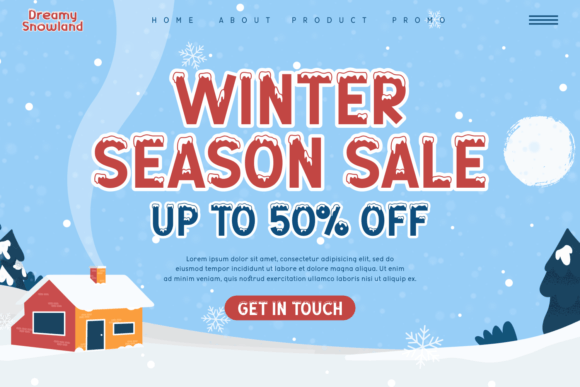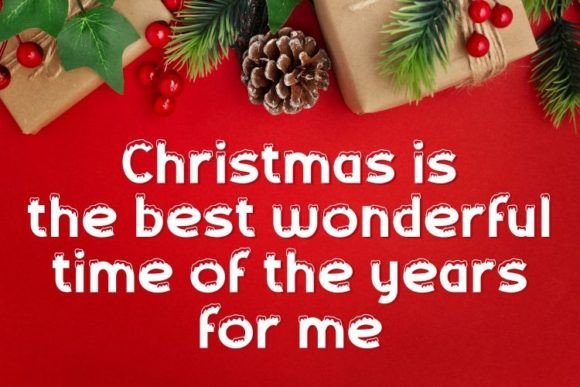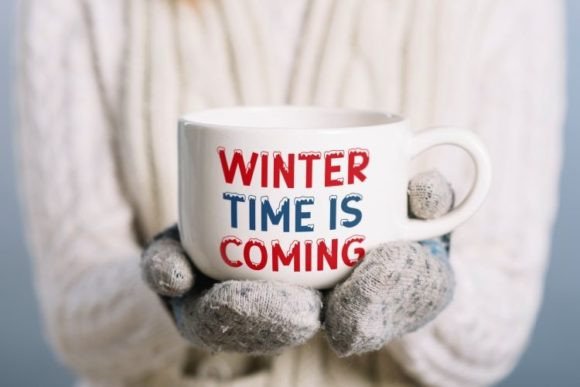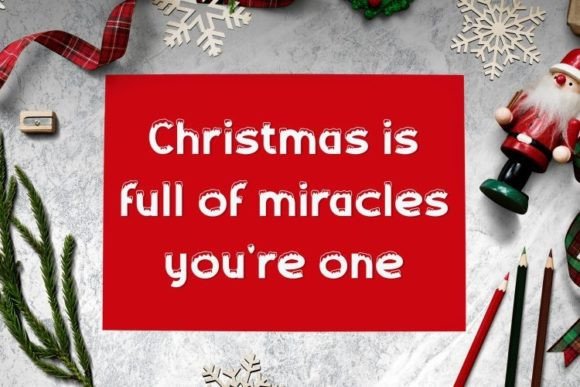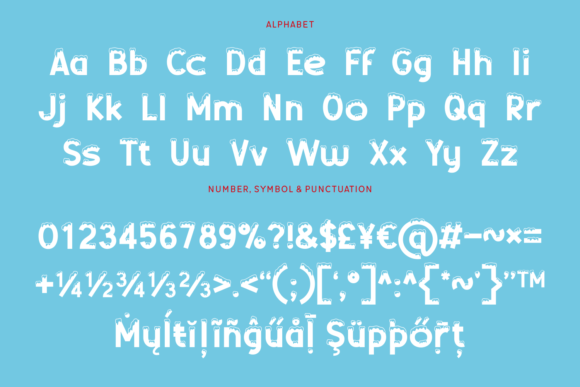
Dreamy Snowland Font: Bringing Winter Wonder to Your Designs
As the winter season approaches, designers and crafters are on the lookout for the perfect typography to capture the magic and essence of snowflakes, frosty mornings, and cozy nights by the fire. If you’re searching for a font that embodies the whimsical and enchanting atmosphere of winter, look no further than the Dreamy Snowland Font. This frosty decorative font is designed to bring all your winter projects to life, adding a touch of wonder and fantasy to your creations.
What is Dreamy Snowland Font?
Dreamy Snowland is a beautifully crafted typeface that exudes a sense of frosty elegance and playfulness. Its intricate and delicate design makes it perfect for a variety of winter-themed projects, from storybooks and Christmas cards to social media graphics and branding materials. With its dreamy and enchanting quality, this font is sure to captivate your audience and leave a lasting impression.
Key Features of Dreamy Snowland Font
- Frosty Decorative Design: Dreamy Snowland boasts an intricate and frosty design that adds a touch of winter wonder to any project.
- Whimsical and Playful: The font’s playful and whimsical nature makes it perfect for children’s storybooks, Christmas cards, and other festive projects.
- Elegant and Sophisticated: Despite its playful nature, Dreamy Snowland Font also exudes a sense of elegance and sophistication, making it suitable for high-end branding and marketing materials.
Uses for Dreamy Snowland Font
Dreamy Snowland Font is incredibly versatile and can be used in a wide range of projects, including:
- Winter Storybooks: Create enchanting storybooks that transport readers to a magical winter wonderland.
- Christmas Cards: Add a touch of festive cheer to your Christmas cards and greetings with this beautiful font.
- Social Media Graphics: Create eye-catching social media graphics that capture the essence of winter and showcase your brand’s personality.
- Branding and Packaging: Use Dreamy Snowland Font to create unique and captivating branding materials, such as logos, labels, and packaging.
Tips for Using Dreamy Snowland Font
To get the most out of Dreamy Snowland Font, here are a few tips to keep in mind:
- Pair with Bold Fonts: Pair Dreamy Snowland Font with bold and modern fonts to create a striking contrast and add visual interest to your designs.
- Experiment with Colors: Try pairing the font with a range of winter-inspired colors, such as icy blues, snowy whites, and rich reds.
- Add Winter Elements: Enhance your designs by adding winter elements, such as snowflakes, pinecones, and holly, to create a cohesive and festive look.
Dreamy Snowland Font is a beautiful and versatile typeface that is sure to bring a touch of winter wonder to your designs. With its frosty decorative design, whimsical and playful nature, and elegant sophistication, this font is perfect for a wide range of winter-themed projects. Whether you’re a designer, crafter, or simply someone who loves the magic of winter, Dreamy Snowland Font is a must-have addition to your typography collection.